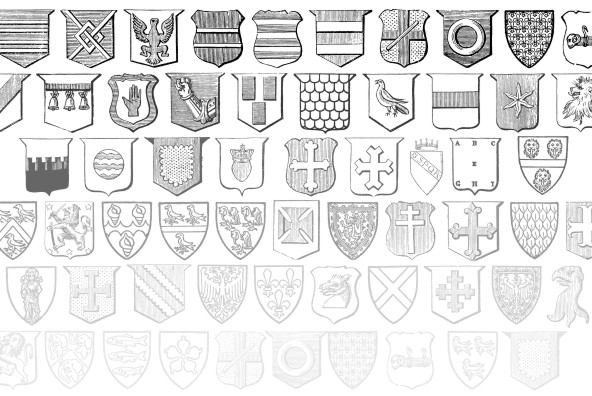
Blasons
Foundry: Intellecta Design
Blasons images (dingbat font) represents authentic ancient heraldry devices, coats of arms, helms, crowns, crests etc.